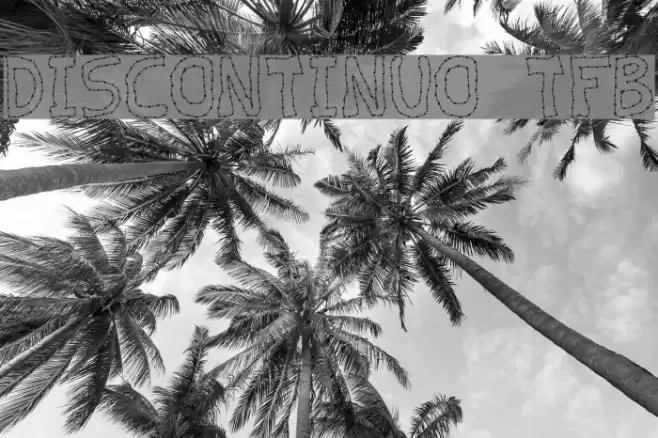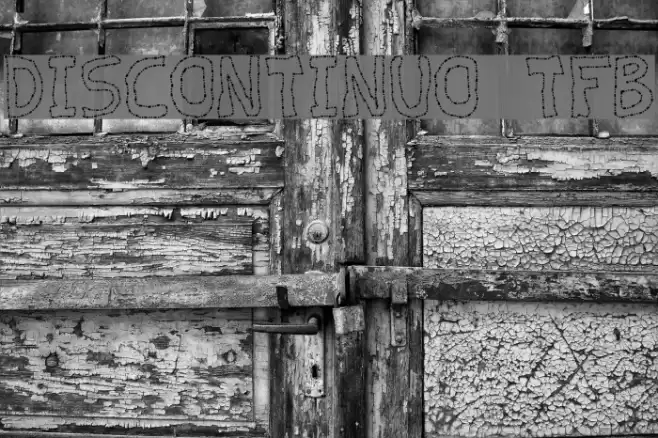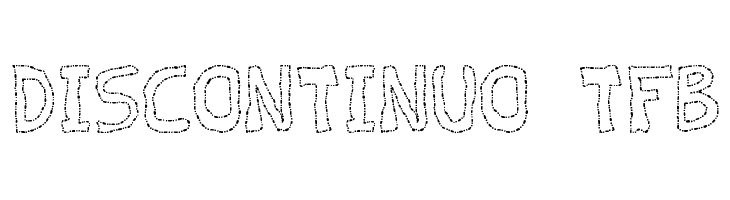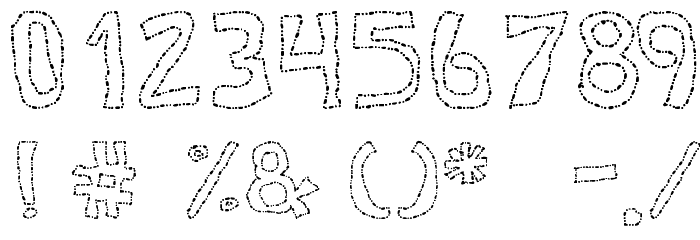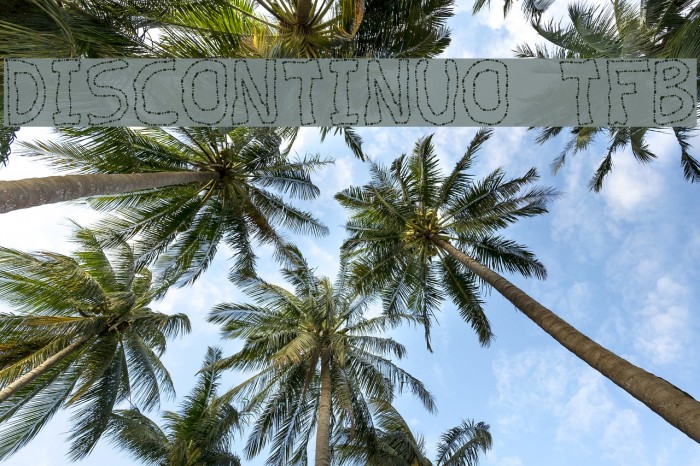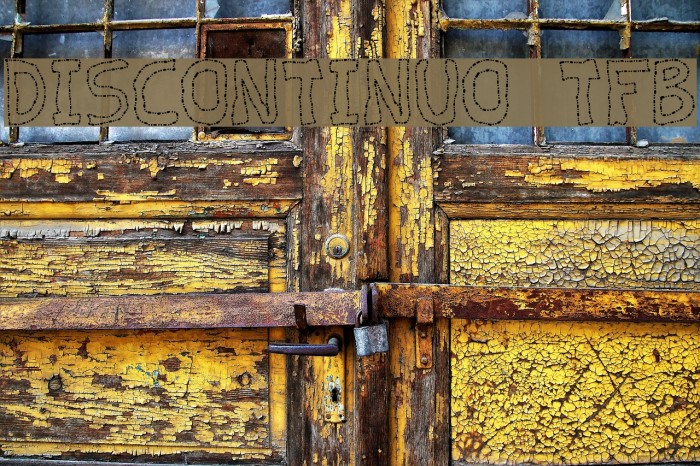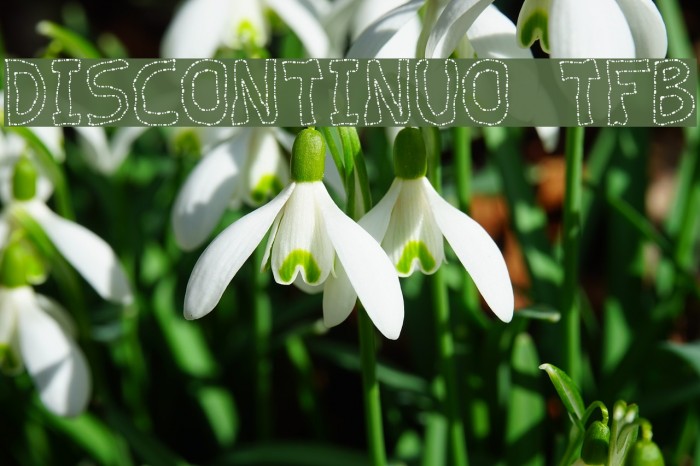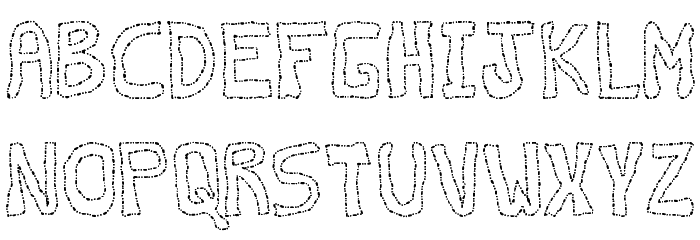
discontinuo tfb Font
discontinuo tfb Description
This font features a playful and whimsical design, characterized by its dotted outline style. Each character is composed of a series of dots that form the shape of the letter or number, giving it a unique, hand-drawn appearance. The font maintains a consistent thickness throughout, with rounded edges that add to its friendly and approachable feel. The characters are slightly irregular, enhancing the casual and informal vibe. This style is particularly eye-catching and can add a fun element to any design project.
A playful, dotted outline font with a whimsical, hand-drawn style from Cartoon fonts.
- Proposed Projects: Ideal for children's books, playful branding, party invitations, and creative posters.
- Overall Style: Playful